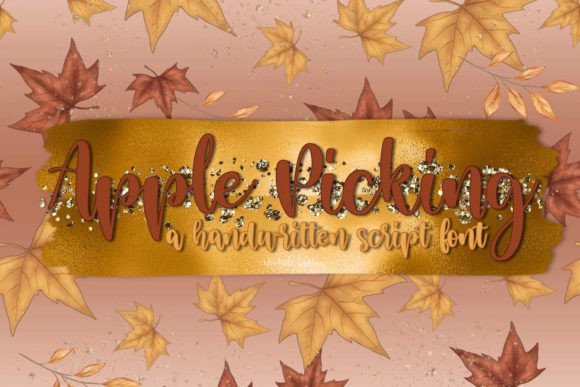
Introducing Apple Picking, a refreshing handwritten script font that will add a vibrant charm to your creative designs! Inspired by the crisp autumn air and the beauty of a bountiful apple harvest, Apple Picking embodies the spirit of the season with its playful and cheerful style.
Step into the world of Apple Picking and discover an enchanting font family that dances across your designs with whimsical flair. Perfect for those who seek to make a lasting impression, Apple Picking is the ideal choice for invitations, greeting cards, eye-catching social media posts, and any project that calls for a touch of handwritten delight.
With Apple Picking, you'll have the power to transform the ordinary into the extraordinary, adding a burst of joy and personality to every creation. Its bouncy, trendy style is sure to turn heads and leave a lasting impression on your audience.
Whether you're a seasoned designer or just starting your creative journey, Apple Picking is the perfect font to add a dash of charisma to your projects. Its versatility knows no bounds, lending its charm to a wide range of designs and styles.